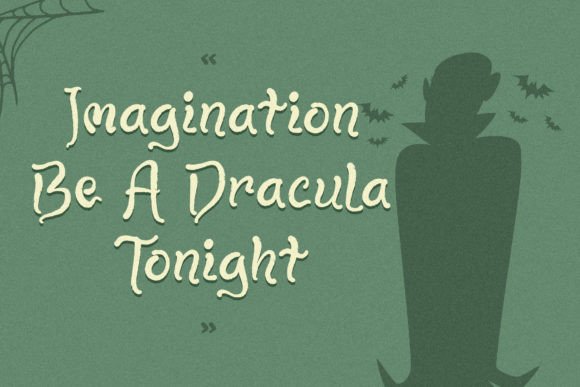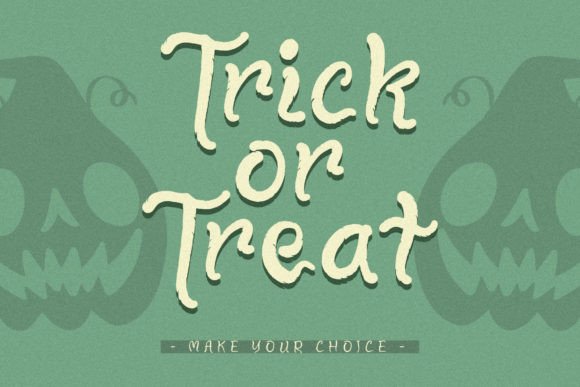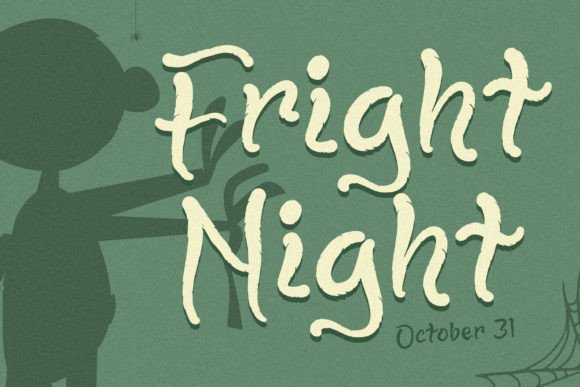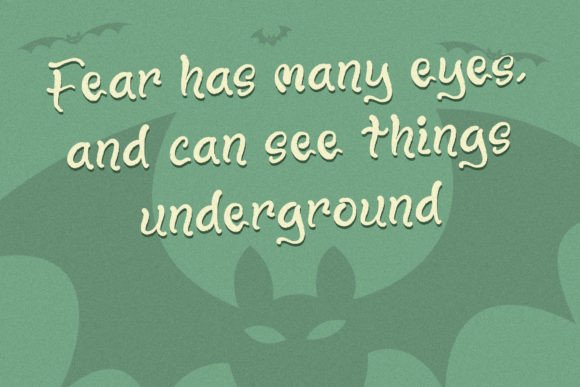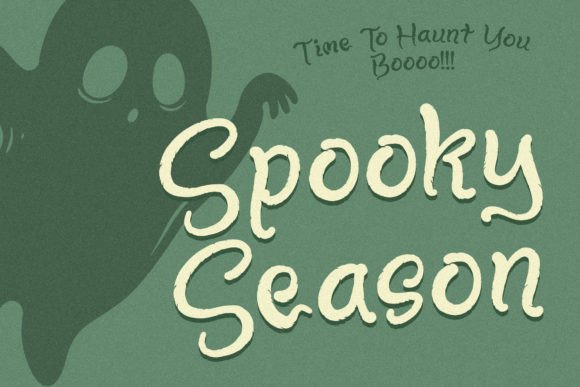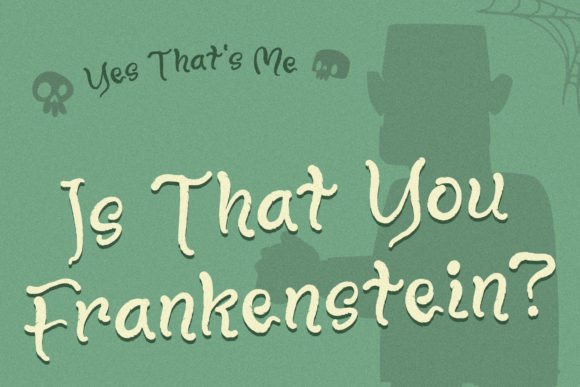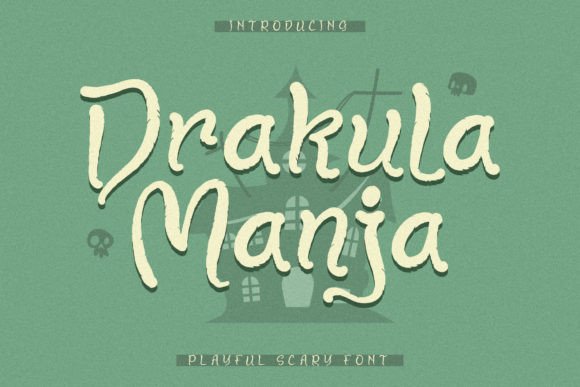
Drakula Manja Font: The Ultimate Playful Scary Font for Your Creative Projects
Are you a designer or crafter looking for a unique and captivating font to elevate your creative projects? Look no further than the Drakula Manja Font! This playful yet scary font is perfect for a wide range of applications, from logos and branding projects to homeware designs, product packaging, and more.
What is Drakula Manja Font?
Drakula Manja Font is a carefully crafted script font that exudes a sense of spooky elegance. Its unique blend of playful and scary elements makes it an ideal choice for designers and crafters who want to add a touch of whimsy to their work. With its beautiful script taste, Drakula Manja Font is sure to make your projects stand out from the crowd.
One of the best things about Drakula Manja Font is its versatility. It’s suitable for a wide range of projects, including:
- Logos and branding projects: Create a memorable brand identity with Drakula Manja Font’s unique and captivating script.
- Homeware designs: Add a touch of spooky elegance to your homeware designs, from mugs to wall art.
- Product packaging: Make your products stand out on store shelves with Drakula Manja Font’s playful yet scary design.
- Mugs: Create one-of-a-kind mugs that are sure to delight your friends and family.
- Quotes and posters: Add a touch of drama and flair to your quotes and posters with Drakula Manja Font’s beautiful script.
- Shopping bags: Create eye-catching shopping bags that will make your customers’ friends jealous.
- T-shirts and apparel: Design unique and stylish t-shirts and apparel that will make you stand out from the crowd.
- Book covers and name cards: Add a touch of sophistication and elegance to your book covers and name cards.
- Invitation cards and greeting cards: Create beautiful and memorable invitation cards and greeting cards with Drakula Manja Font.
- Labels and photography: Use Drakula Manja Font to add a touch of personality to your labels and photography.
- Watermark and special events: Create unique and memorable watermarks and special event designs with Drakula Manja Font.
Why Choose Drakula Manja Font?
So why choose Drakula Manja Font for your creative projects? Here are just a few reasons:
- Unique and captivating design: Drakula Manja Font’s playful yet scary design is sure to grab attention and make your projects stand out.
- Versatile: Drakula Manja Font is suitable for a wide range of projects, from logos and branding projects to homeware designs and product packaging.
- Beautiful script taste: Drakula Manja Font’s beautiful script taste adds a touch of elegance and sophistication to any project.
Tips for Using Drakula Manja Font
Here are a few tips for using Drakula Manja Font in your creative projects:
- Experiment with different colors: Drakula Manja Font looks great in a variety of colors, from bold and bright to muted and pastel.
- Play with font sizes: Drakula Manja Font can be used at a variety of font sizes, from large and bold to small and delicate.
- Combine with other fonts: Drakula Manja Font pairs well with a variety of other fonts, so feel free to experiment with different combinations.
- Use for headlines and titles: Drakula Manja Font is perfect for headlines and titles, where its bold and playful design can really shine.